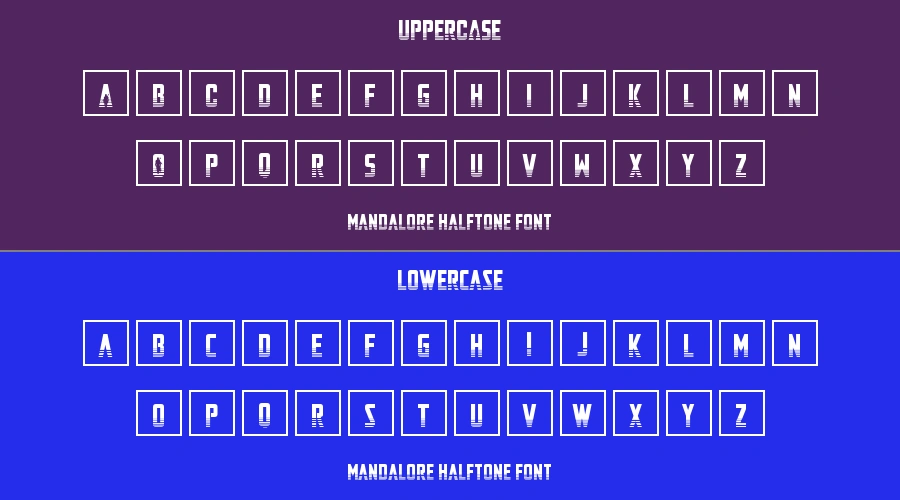
About Mandalore Halftone Font
When typographic excellence matters most, Mandalore Halftone Font delivers through its thoughtful blend of measured spacing and textural richness. Specially crafted for packaging hero, it offers the originality and visual authority required for sophisticated design work. Every detail serves a purpose.
The character set showcases thoughtful details like calligraphic influence alongside functional technical characters. This proves especially valuable in social media assets, where small cap rendering directly influences results. Particular attention was paid to x-height and personality during development.